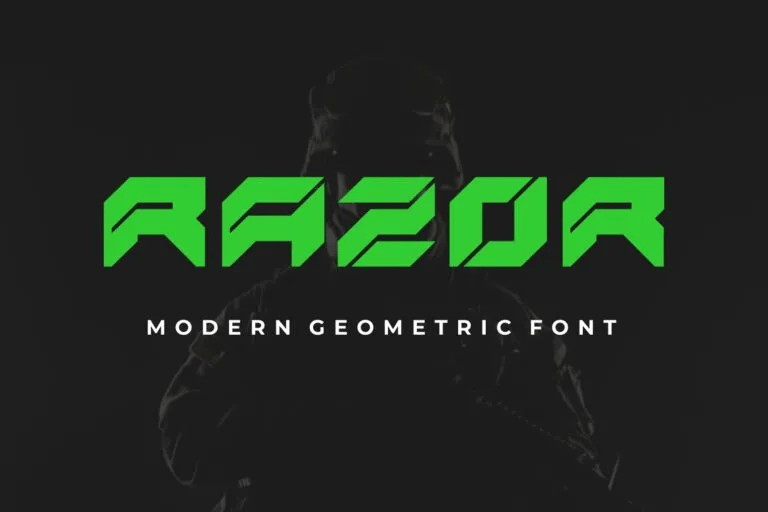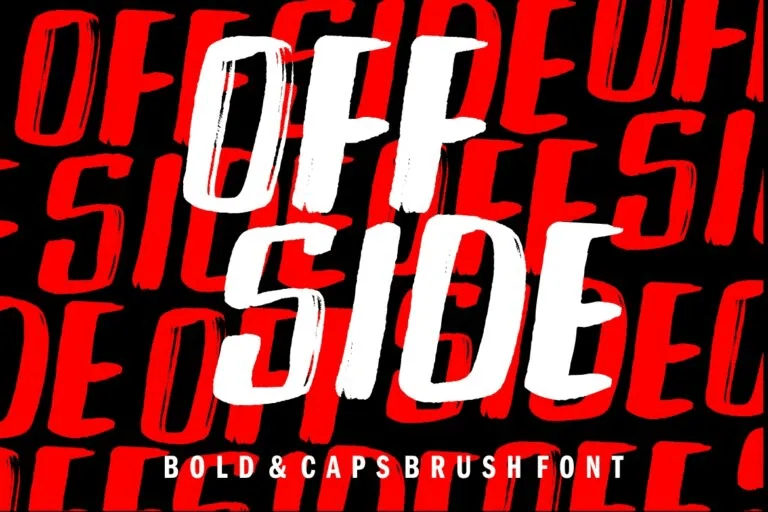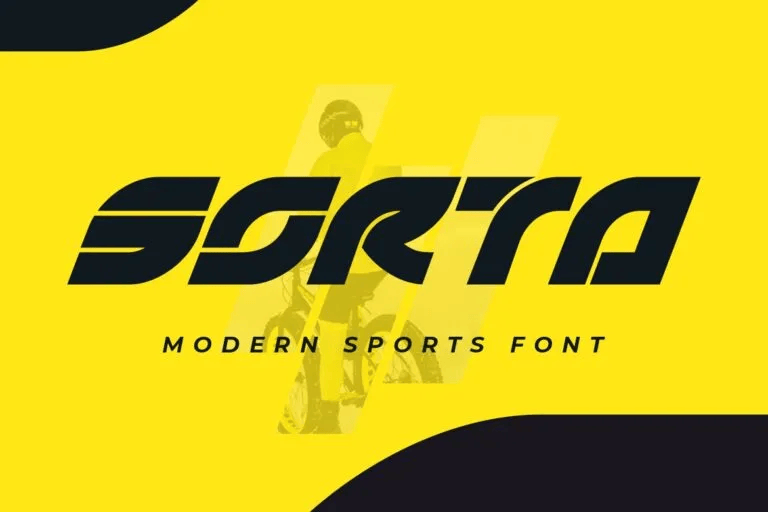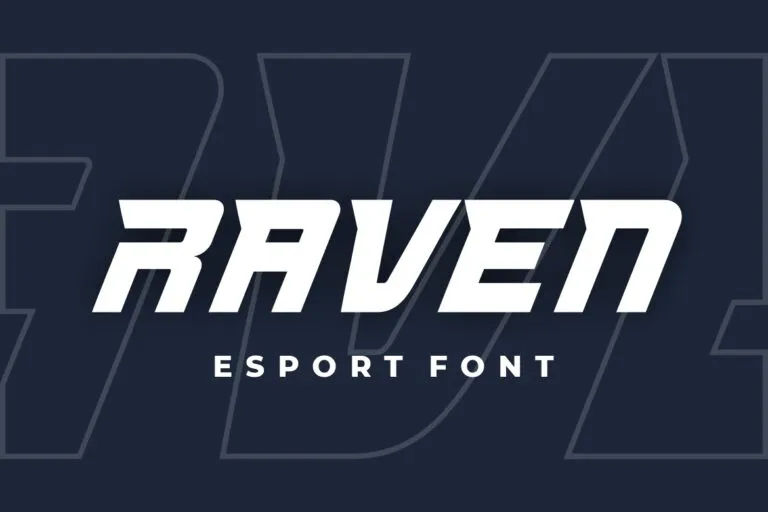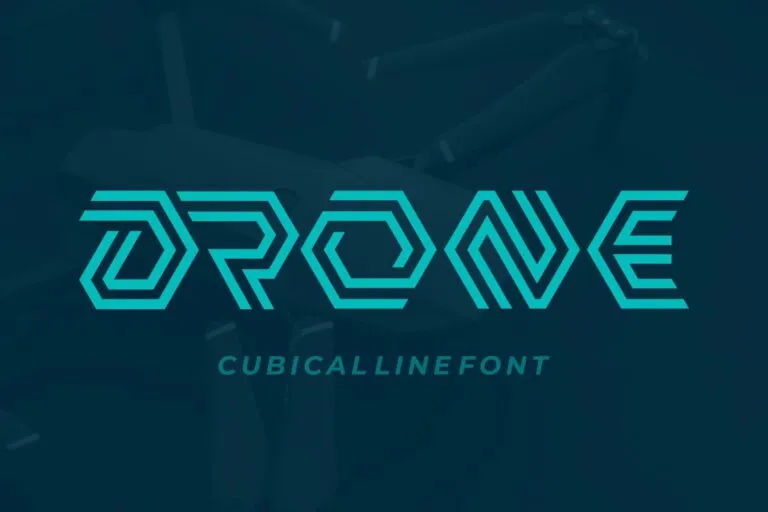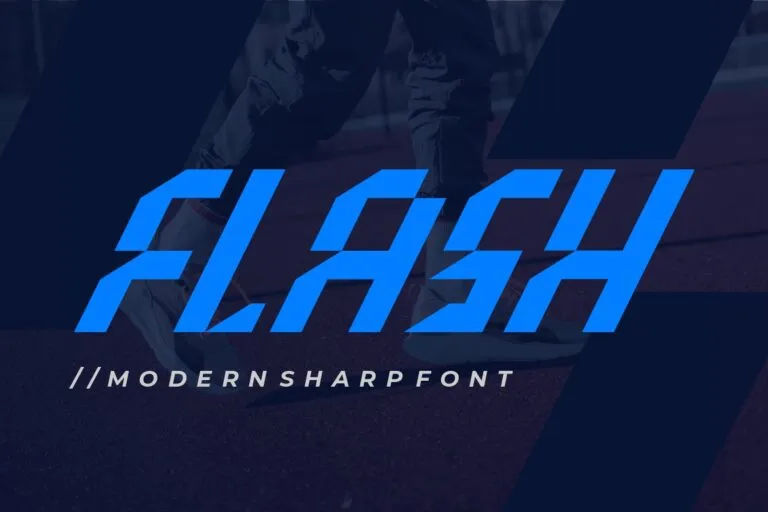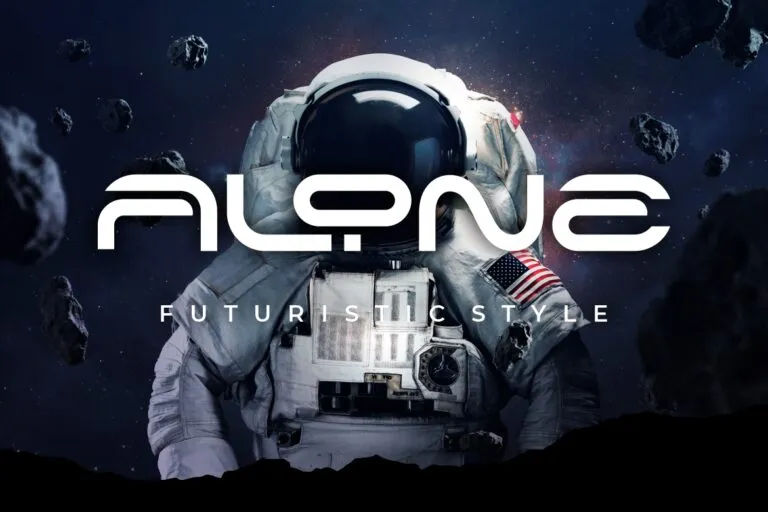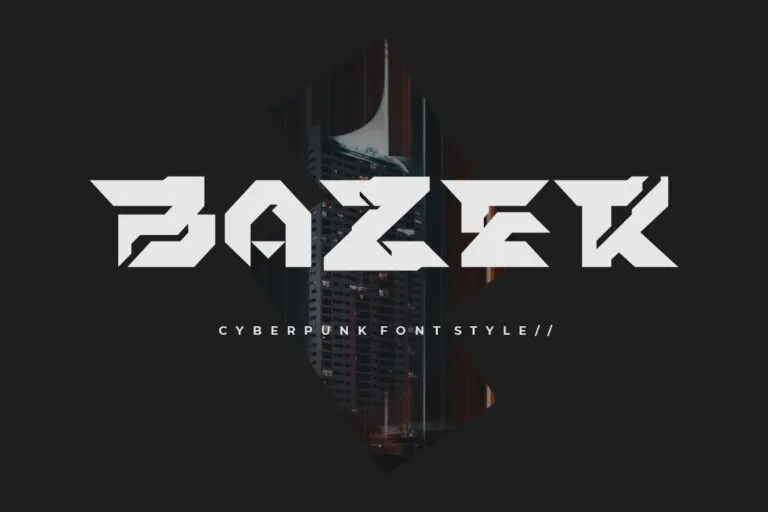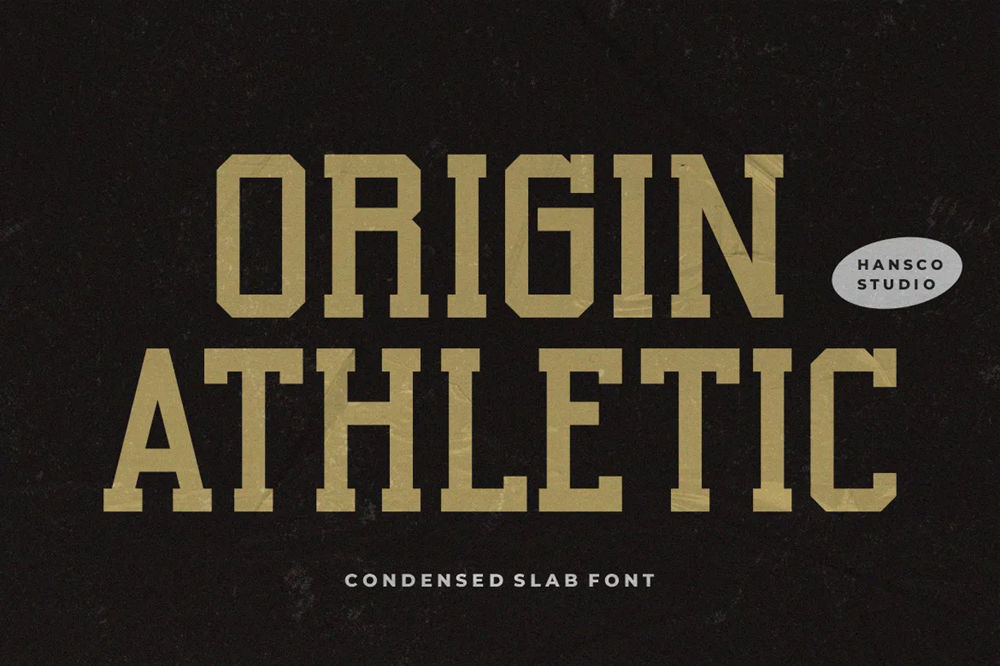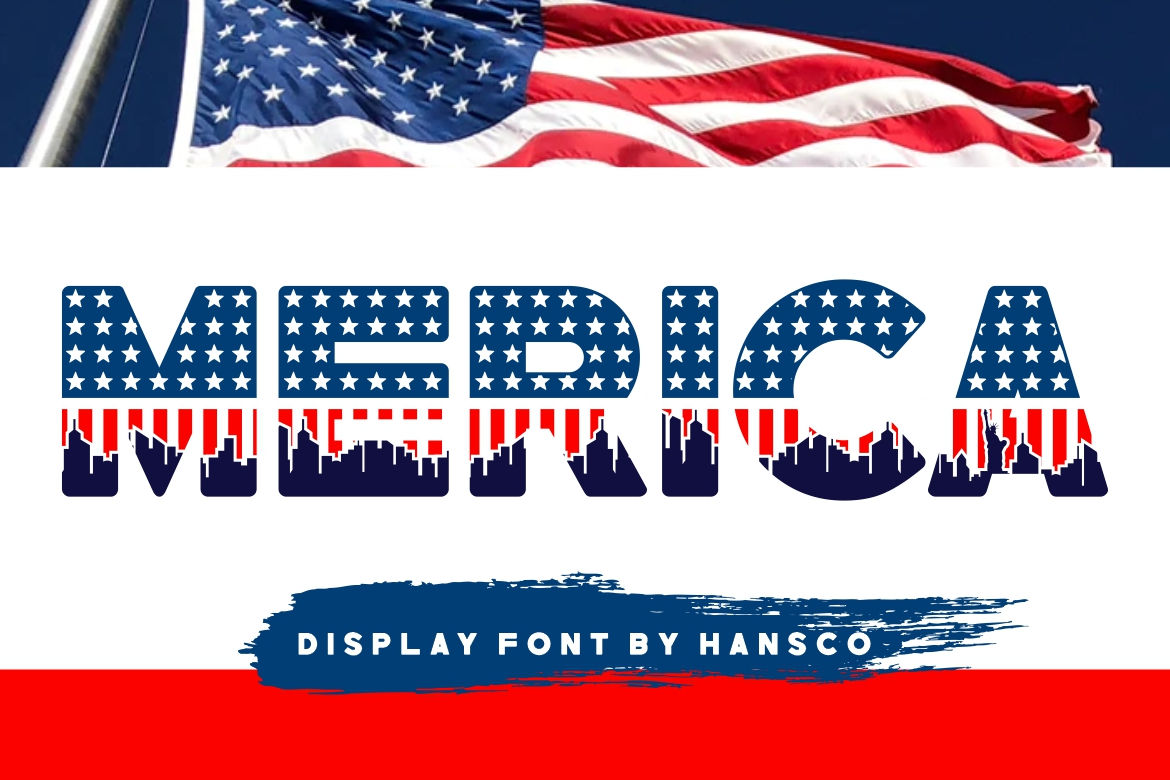
Best Sports Fonts for Strong Athletic Brand Identity
Selecting the best sports fonts is a crucial step in building a strong and recognizable athletic brand identity. Typography influences how a sports brand communicates strength, speed, and professionalism. According to Matic Digital, typography directly influences user perception and trust, particularly in branding and visual identity systems.
This article explores 15 best sports fonts for athletic designs from Hans Co, focusing on bold, sharp, and geometric styles that suit sports brands.
Why Best Sports Fonts Matter in Sports Branding
Sports typography must balance impact and legibility to communicate strength, professionalism, and confidence. Bold and geometric letterforms help convey authority at a glance, making them effective for team logos, jerseys, banners, and digital sports content.
Typography also plays a role in expressing motion and consistency. Angular shapes often suggest speed and intensity, while structured geometric fonts support cohesive branding across merchandise, promotional materials, and event visuals.
15 Best Sports Fonts That Support Strong Athletic Design
The following fonts are selected from Hans Co’s sport and geometric categories and evaluated based on form, visual tone, and branding suitability, making them relevant examples of the best athletic font designs for any sport.
1. Machton
Machton draws from traditional varsity lettering to establish a strong sense of athletic heritage. Its bold construction and disciplined structure help sports visuals feel unified, confident, and easy to recognize on the field.
2. Origin Athletic
Origin Athletic reflects classic varsity traditions through solid, confident letterforms. Its grounded construction supports sports branding that values unity, consistency, and a strong sense of team identity.
3. Merica
Merica features a bold patriotic display style that immediately communicates pride and celebration. From a sports branding perspective, the font works well for teams and events that emphasize national identity and fan energy. Its expressive character helps visuals feel confident and emotionally engaging without overwhelming the design.
4. Grizlie
With its squared geometry and heavy construction, Grizlie establishes a bold visual foundation for modern sports branding. The font emphasizes stability and precision. This structured approach makes it a strong choice for brands seeking a clean, authoritative presence across logos, apparel, and digital media.
5. Razor
Razor brings a structured, block-based design that feels engineered rather than decorative. Its squared depth and subtle detailing create a sense of tactical strength and digital sophistication, a strong fit for sports brands that want to project control, intensity, and a modern competitive mindset.
6. Off Side
Off Side delivers thick, dynamic lettering that feels spontaneous and full of momentum. Its textured finish brings the emotion of match-day visuals into sports branding, helping designs feel loud and alive.
7. Genta
Genta features thick, well-proportioned letterforms that create a strong visual presence without relying on aggressive details. This balance allows sports brands to appear confident and professional while remaining approachable to a wide audience.
8. Sorta
Sorta combines sharp, italic letterforms with bold weight to create a modern, forward-looking visual tone. The leaf-inspired shapes and pointed corners introduce an organic yet dynamic character, suitable for sports brands that want to express speed, sustainability, and a futuristic, eco-conscious identity.
9. Meta Courage
Meta Courage draws from traditional varsity lettering to establish a strong sense of team heritage. Its bold construction helps sports branding feel grounded, unified, and instantly recognizable across jerseys and merchandise.
10. Raven
Raven uses slanted geometry and strong weight to emphasize motion and control. The font supports sports branding that aims to feel fast, technical, and future-focused.
11. Drone
Drone is built from angular, cubical outlines that emphasize structure and accuracy. This design approach supports sports branding that wants to appear engineered, controlled, and technologically advanced.
12. Flash